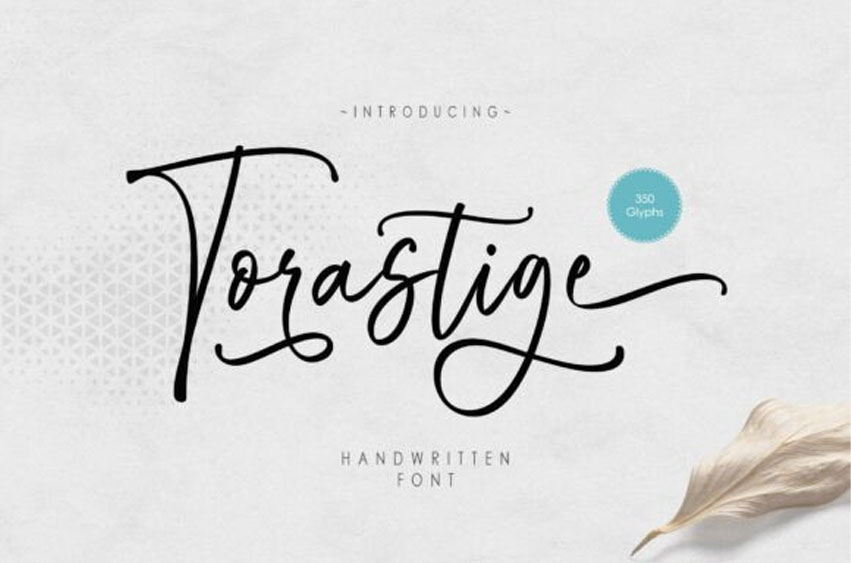
Torastige Font
Torastige Font is an elegant handwritten font. This font is neatly crafted and highly detailed. Use it for any design projects that require a charming appearance!
**Torastige Script** has 350 glyphs and all PUA-encoded characters. which means you can access all of the glyphs and swashes with ease!